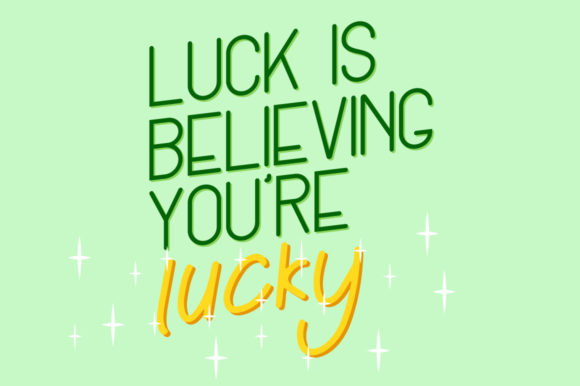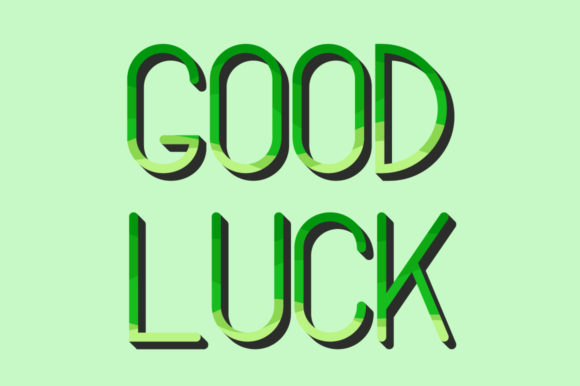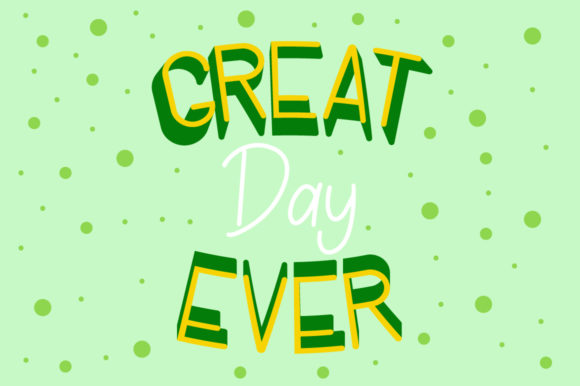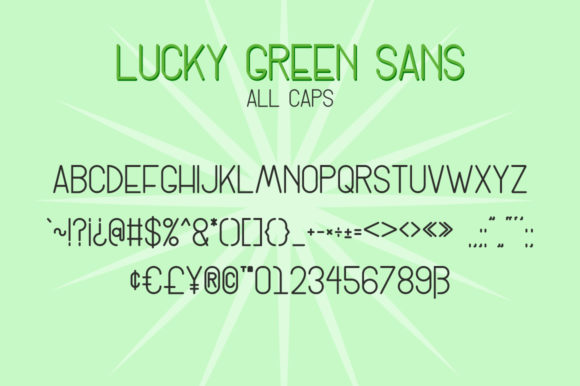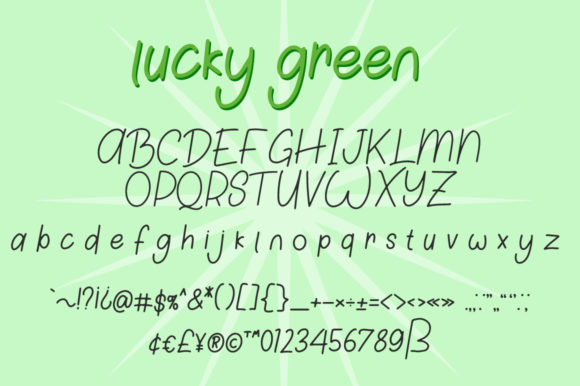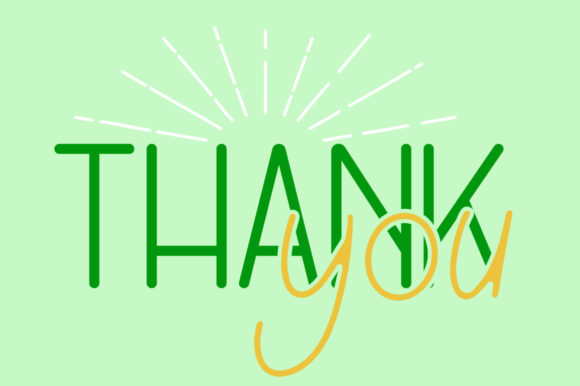
Lucky Green Duo Font
About Lucky Green Duo Font
The Lucky Green is an unique font duo. It includes a striking sans version and a more elegant script version. It’s perfect for signatures, stationary, logos, quotes, magazines, book covers, website headers, clothing and much more!